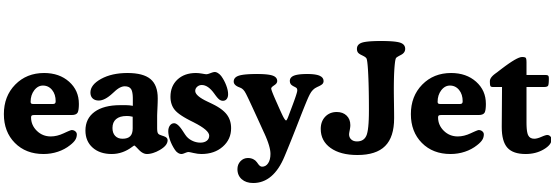
EasyJet Font
AirlineEasyJet is a British low-cost airline founded in 1995. It operates flights to over 30 countries in Europe, as well as some destinations in North Africa and the Middle East. It is one of the largest budget airlines in Europe, with a fleet of over 300 aircraft and serving over 60 million passengers annually.
The EasyJet logo features Cooper Black font created by Oswald Bruce Cooper and published by Barnhart Brothers & Spindler in 1922. It is depicted as an extra bold weight of Cooper Old Style. You can view more details about it here.